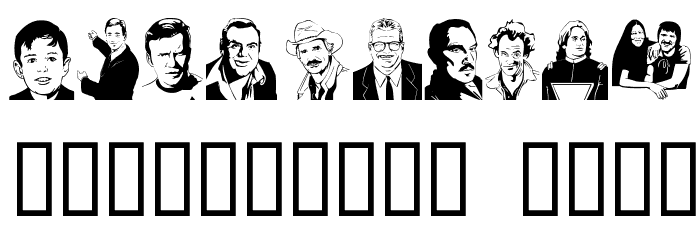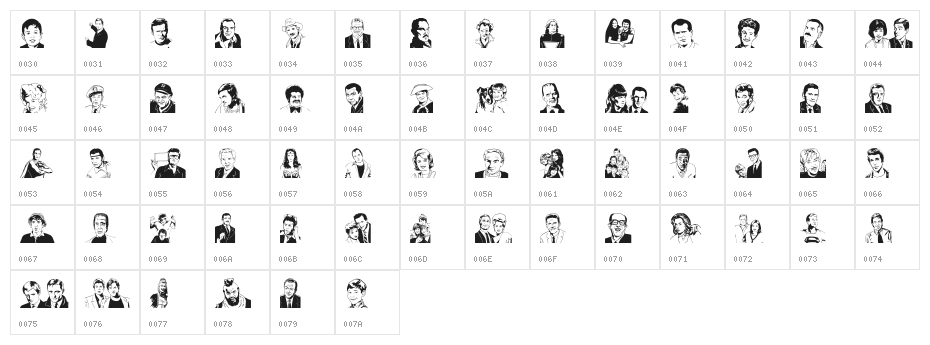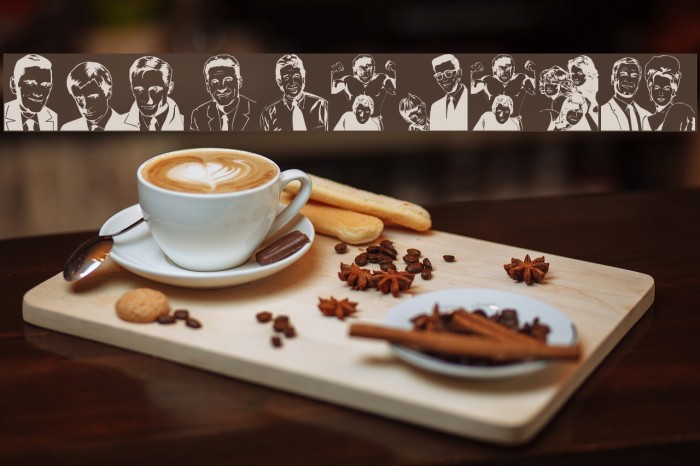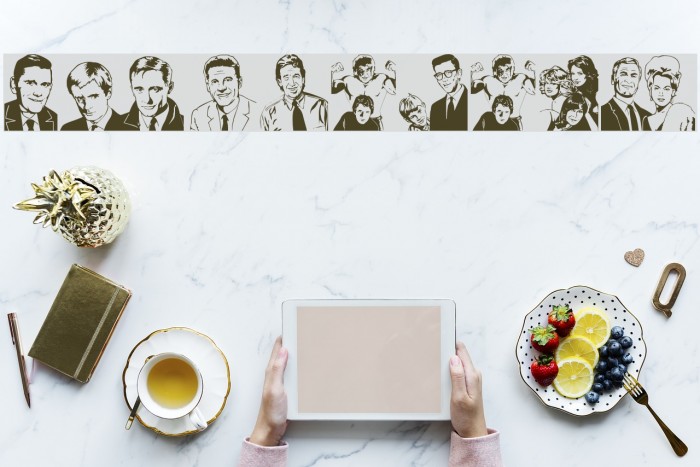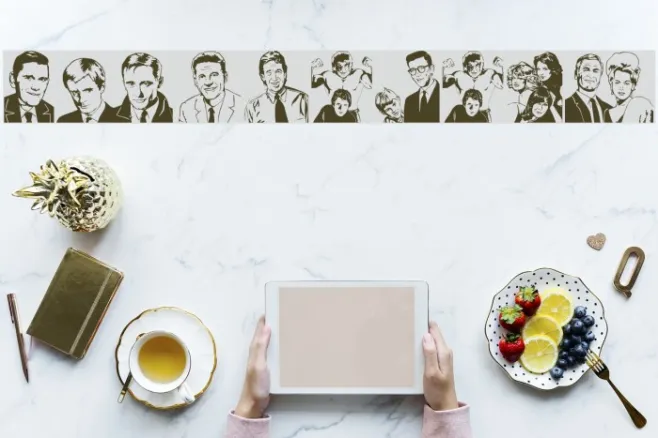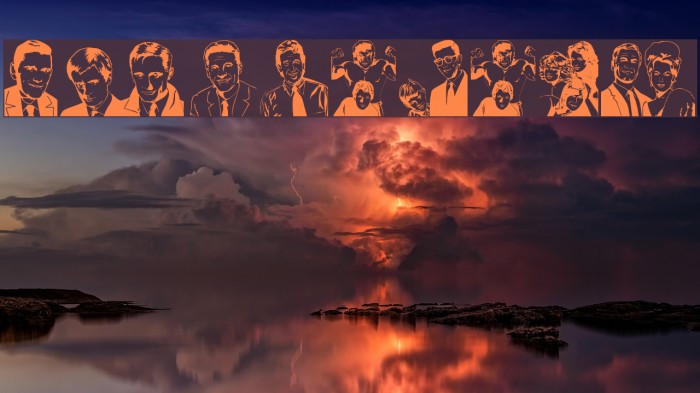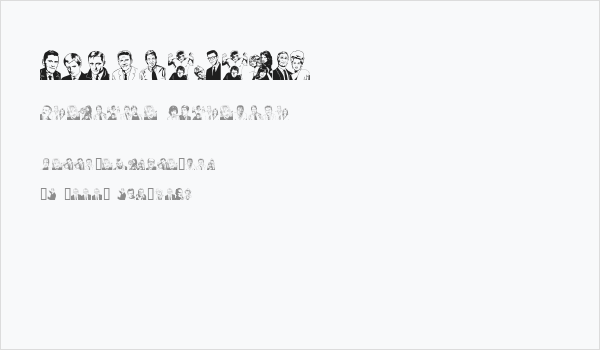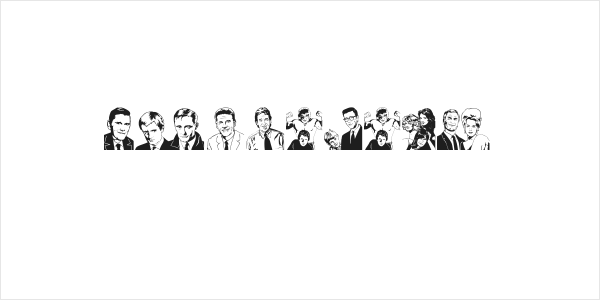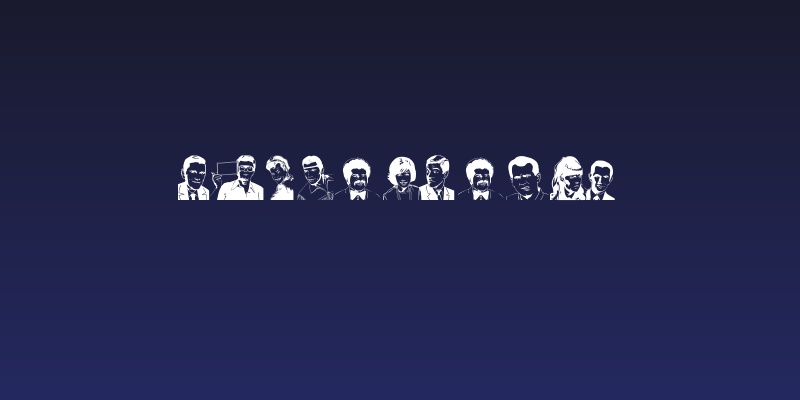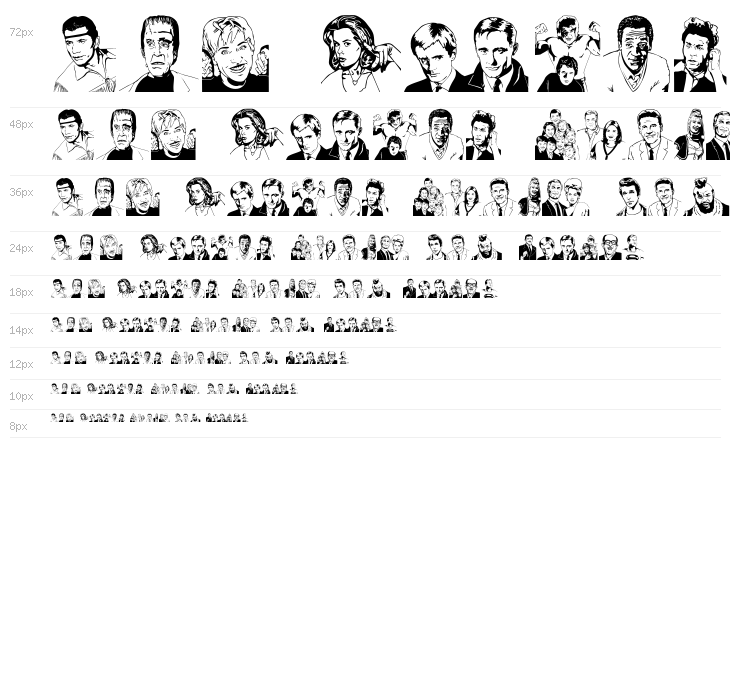
Quotidian Font
Quotidian Description
The image does not display a valid font. It consists of illustrated portraits of various people and a row of rectangular boxes, but no recognizable alphabetic or numeric characters are present.